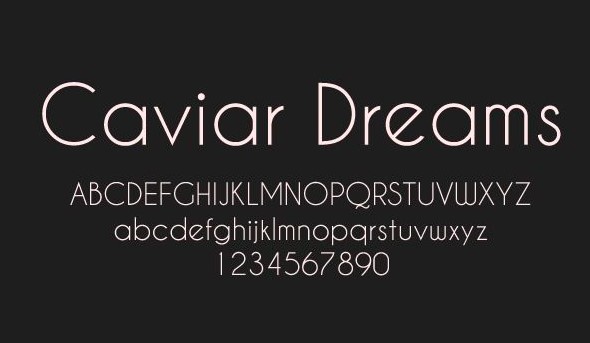
Today, we’re excited to share a sleek and top-notch sans serif typeface, Caviar Dreams Font. This font possesses all the advanced features essential for commencing any project. With this typeface, you can design high-quality works effortlessly and efficiently. It boasts superbly classic geometric shapes for the letters, making it versatile for any kind of project.
View Of Caviar Dreams Font
The maker of this font has already released in different weights, widths, and sizes. Along with it they have also released a number of very popular non-Latin alphabets.
This unque and elegant font that looks like alcubierre font which has a popular texture so that can also be used in pairing also.
- Title sequences and end credits
- Game interfaces
- Annual reports
- Banners
- Directories
- Video games
- Advertisements
| Name | Caviar Dreams Font |
| Designer | Lauren Thompson |